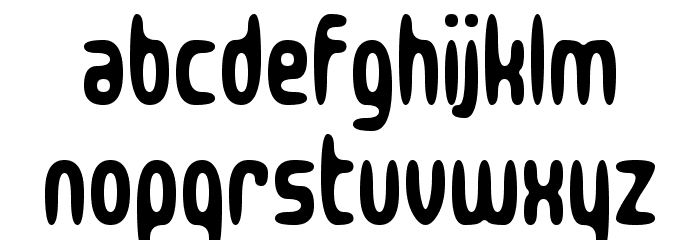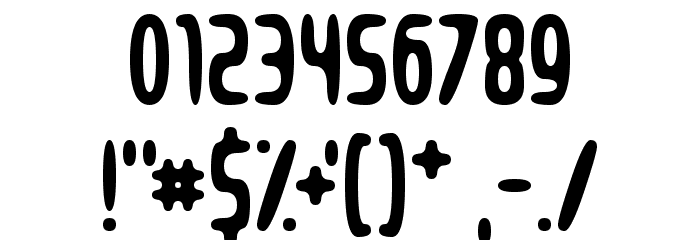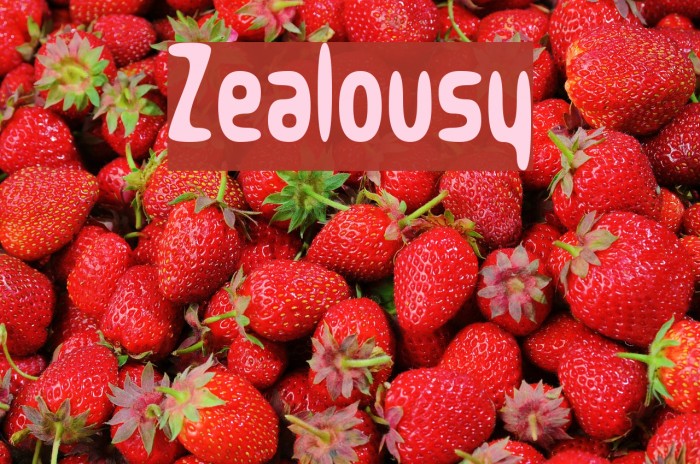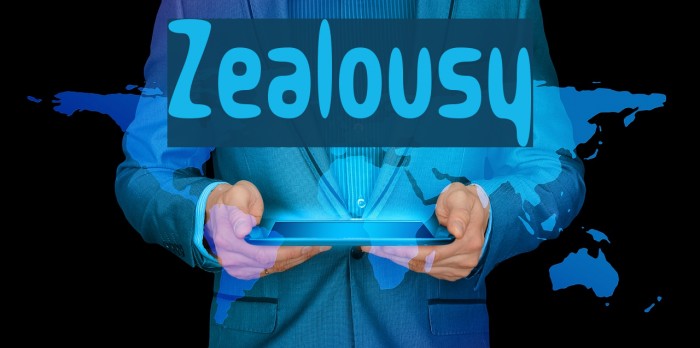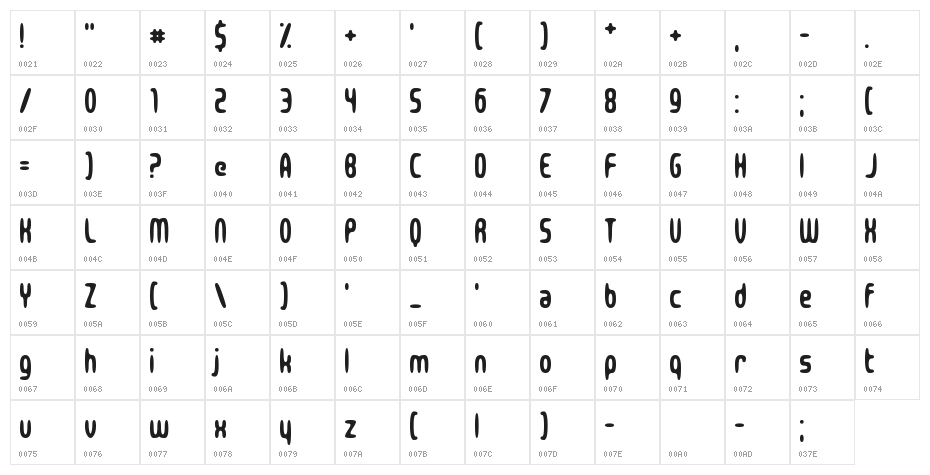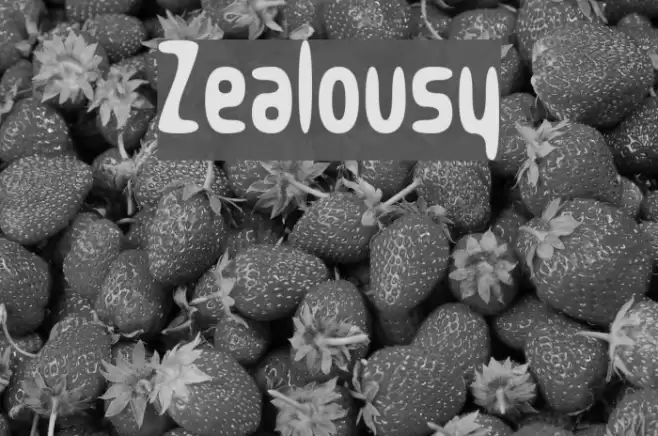
Zealousy Font
This font features a playful and bold design with rounded, smooth edges that give it a friendly and approachable feel. The characters are uniformly thick, creating a consistent and cohesive look across both uppercase and lowercase letters. The numbers and special characters maintain the same whimsical style, making it versatile for various uses. Its unique appearance is eye-catching, making it suitable for projects that require a fun and engaging typeface. The overall design is modern with a hint of retro charm, perfect for creative and informal applications.
A playful, bold font with rounded edges and a modern, whimsical style.
- Proposed Projects: Ideal for children's books, playful branding, posters, and social media graphics.
- Overall Style: Modern, Playful